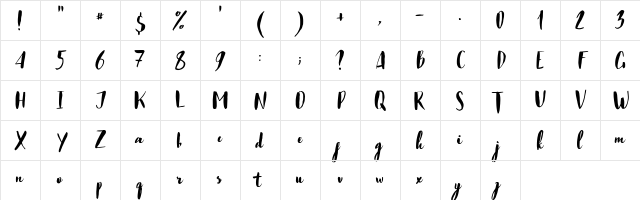
Just Believe Regular
Design Context for Just Believe
Just Believe is a composed and adaptable typeface that performs quietly and consistently across a wide range of design contexts.